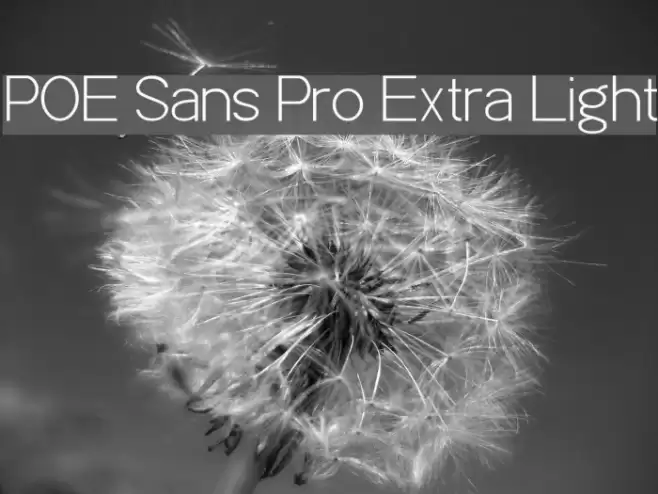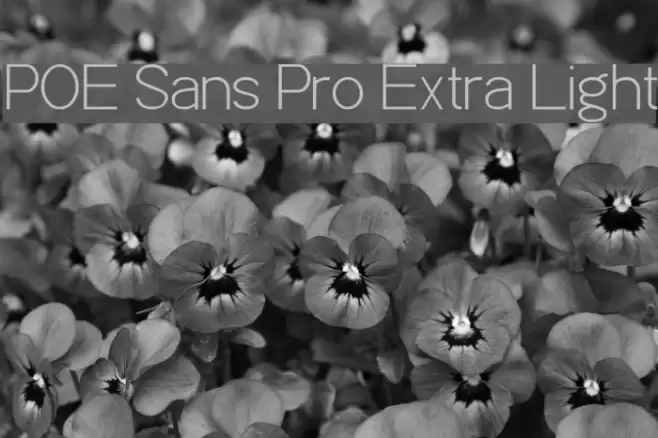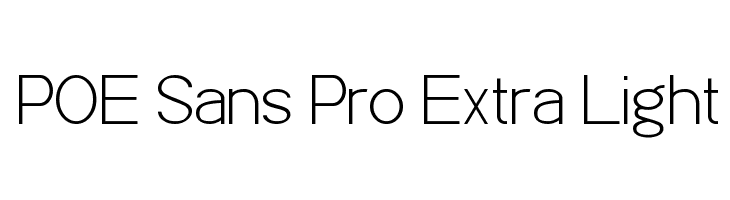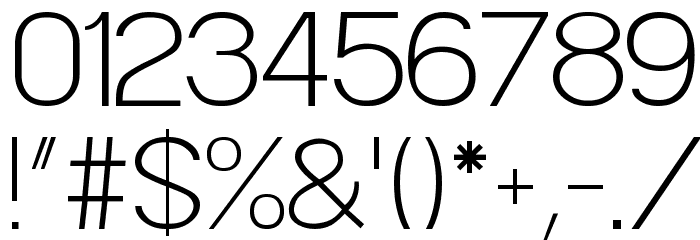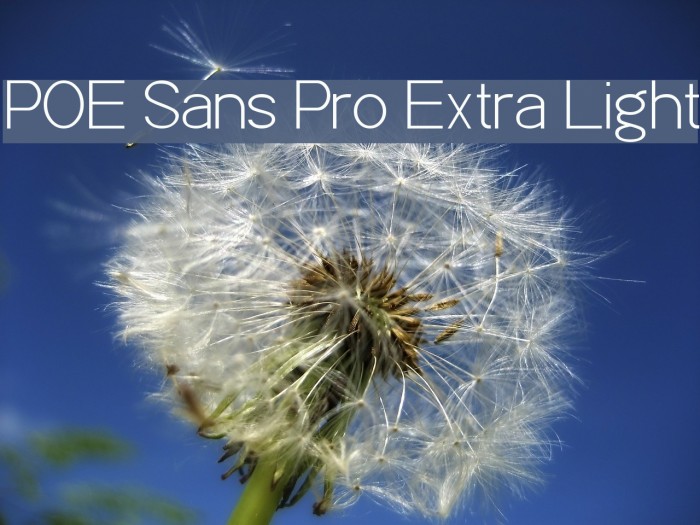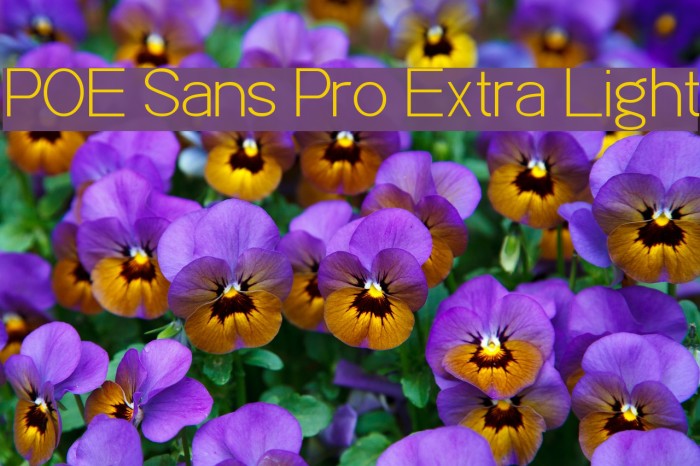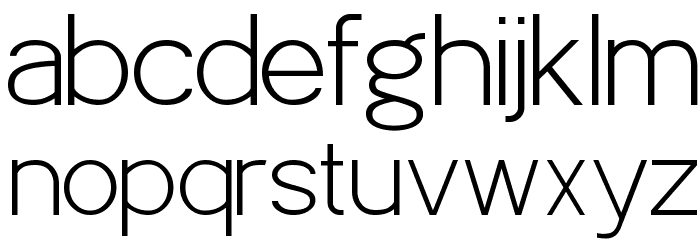
POE Sans Pro Extra Light Font
POE Sans Pro Extra Light Description
This font features a clean and modern sans-serif design with an extra-light weight, making it ideal for minimalist and contemporary projects. The characters are well-proportioned with a uniform stroke width, contributing to its sleek and elegant appearance. The uppercase letters maintain a consistent height, while the lowercase letters have a slightly rounded quality, adding a touch of softness to the overall aesthetic. The numerals are clear and legible, and the special characters are designed to match the font's overall style. This font is versatile and can be used in a variety of design contexts.
A modern, extra-light sans-serif font with a clean and minimalist design from Uncategorized fonts.
- Proposed Projects: Ideal for branding, web design, editorial layouts, and minimalist posters.